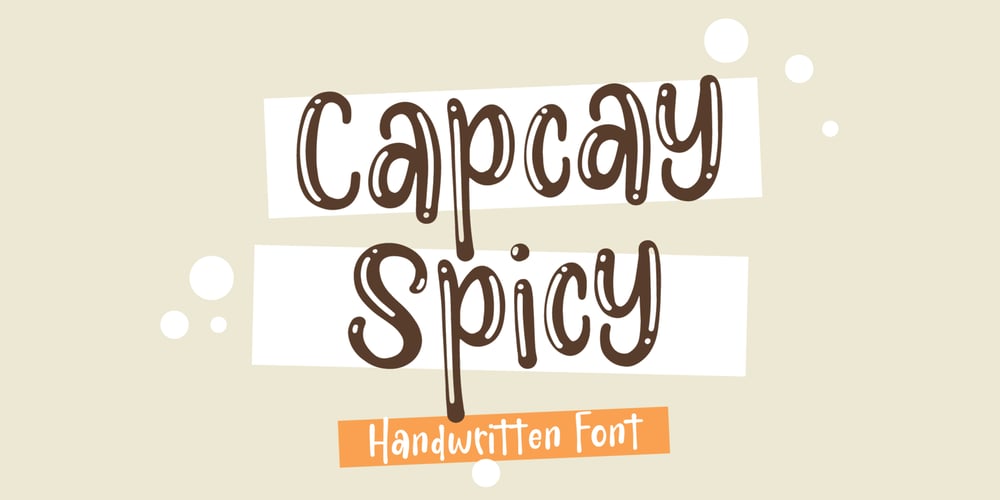
Capcay Spicy
Capcay Spicy font
Capcay Spicy Font Family was designed by Ghazi and published by Asd Studio. Capcay Spicy contains 2 styles and family package options. ntroducing Capcay Spicy, created by Asd Studio is a quirky and relaxed handwritten font. Whatever the topic, this font will be a wonderful asset to your font library,as it has the potential to enhance any creation.What’s Included?:: Uppercase & Lowercase:: Numbers & Punctuation:: Multilingual SupportEnjoy our font, thank you.